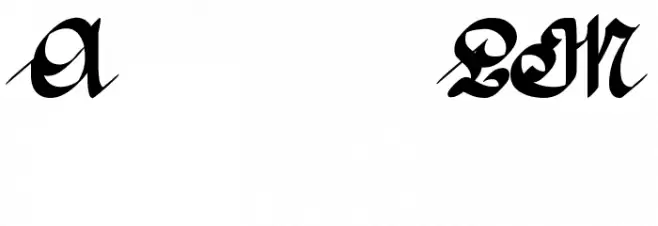
McLeona Bold Font
McLeona Bold Description
This font features a bold, dramatic style with a strong calligraphic influence. The uppercase letters are ornate and intricate, with sweeping curves and sharp angles that give them a striking appearance. The lowercase letters maintain a consistent flow, with elongated strokes and elegant flourishes. The overall design is reminiscent of traditional script fonts, yet it incorporates modern elements that make it stand out. The numbers and special characters are equally stylized, ensuring a cohesive look across all text. This font's unique blend of classic and contemporary design elements makes it versatile for various creative applications.
A bold, calligraphic font with ornate uppercase and flowing lowercase letters from Uncategorized fonts.
- Proposed Projects: Ideal for wedding invitations, luxury branding, artistic posters, and elegant packaging designs.
- Use Case: Logos, Headlines, Invitations